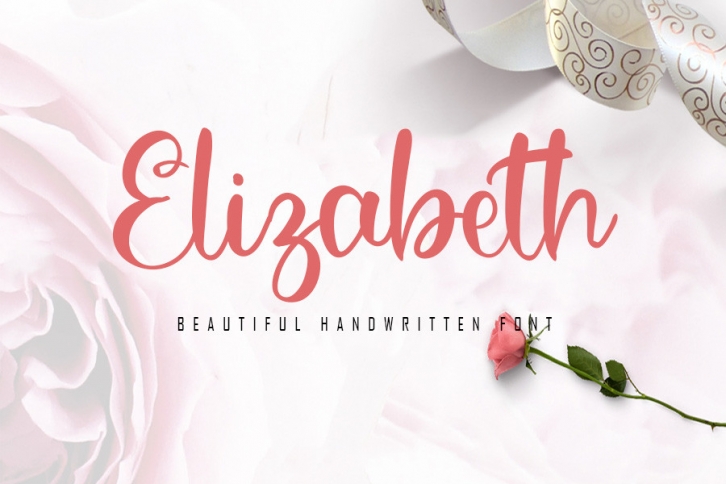
Elizabeth is a sweet, whimsical, flowing and thin script font. Featuring characters that dance along the baseline, this font will add a luxury spark to any design project that you wish to create!